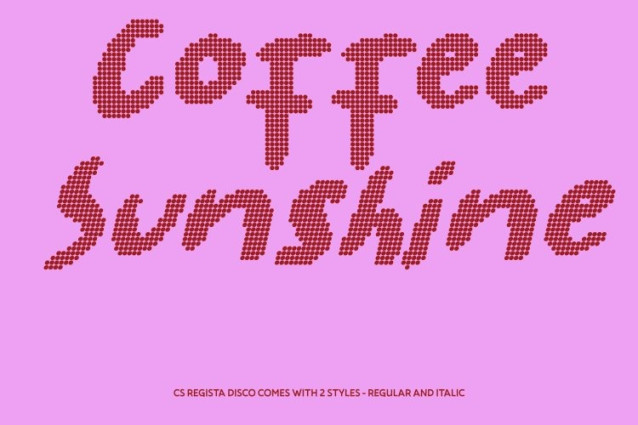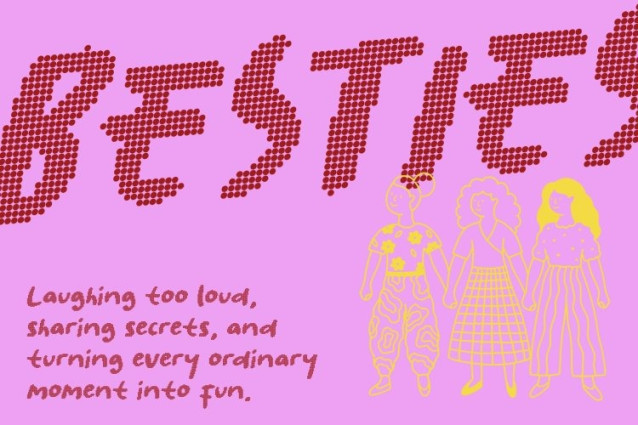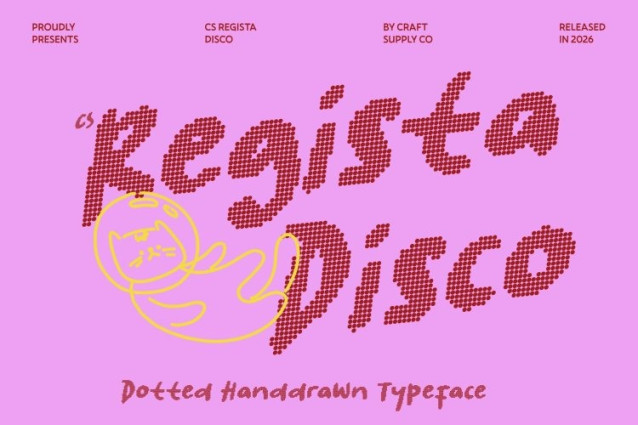
CS Regista Disco Font
CS Regista Disco Font is a marker-style font that blends clean sans serif structure with the warmth of natural handwriting, enhanced by a lively disco-style dotted texture. The handwritten strokes create an organic and approachable feel, while the dotted surface introduces a subtle sparkle that adds visual excitement and decorative charm.
Polished Forms with Handwritten Expression
The font maintains clear sans serif foundations, ensuring readability and balance across different design applications. Soft curves, organic strokes, and slightly irregular edges provide the expressive character of handwritten marker lettering. The disco-inspired dotted texture enriches each letterform with depth and rhythm, creating a playful yet polished look.
Expressive and Approachable Character
This font captures the authenticity of handmade lettering while maintaining a professional structure. The combination of handwritten movement and decorative texture brings energy and personality to every word, making typography feel lively, friendly, and visually engaging.
Versatile for Branding, Editorials, and Creative Media
This font performs beautifully in editorial layouts, branding systems, posters, digital graphics, and social media designs. Its marker-inspired strokes create bold and expressive headlines, while the textured finish adds a distinctive visual layer that helps designs stand out.